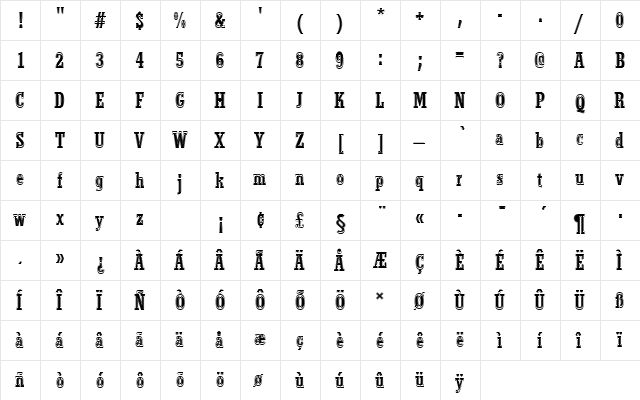
StymieTMedConIn1 Regular
Design Context for StymieTMedConIn1 Typeface
StymieTMedConIn1 takes a measured approach to typography — its balanced proportions and neutral character make it a reliable workhorse for both digital and print work.